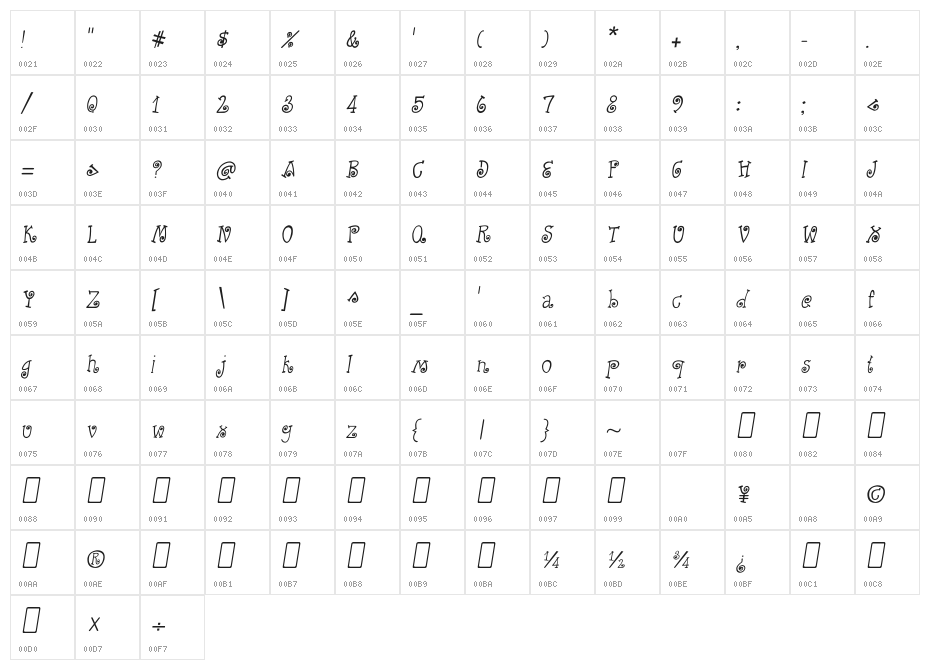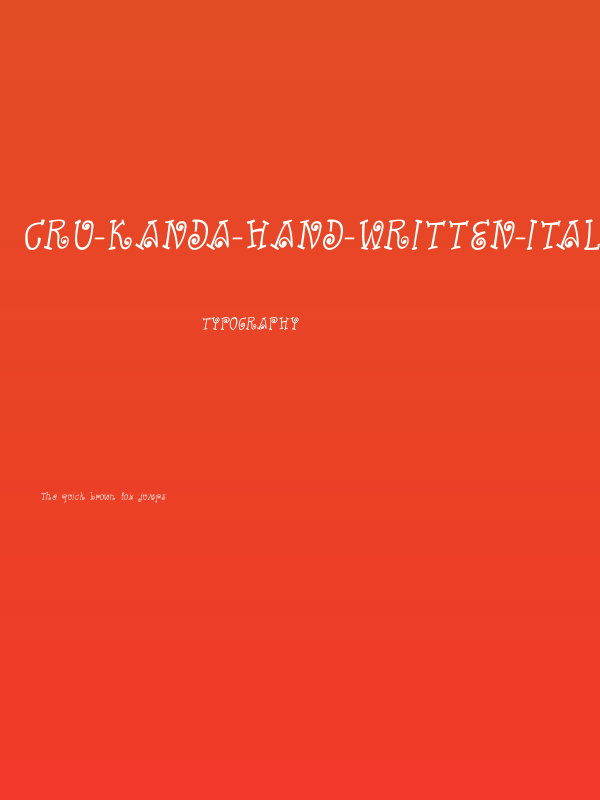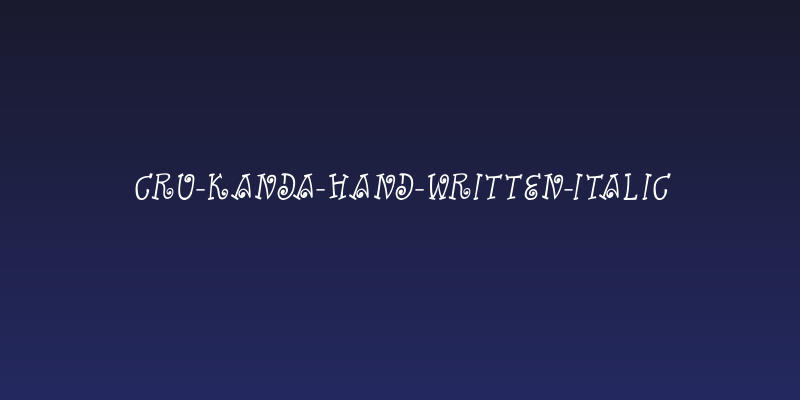
CRU-Kanda-Hand-Written-Italic Font
CRU-Kanda-Hand-Written-Italic Description
This font features a whimsical, hand-drawn style with a playful and artistic flair. The characters are uniquely crafted with swirling and curling elements, giving them a lively and dynamic appearance. The uppercase letters are bold and prominent, while the lowercase letters maintain a consistent flow with a slightly more delicate touch. Numbers and special characters follow the same creative design, ensuring a cohesive look throughout. The font's overall aesthetic is both charming and distinctive, making it suitable for projects that require a touch of creativity and individuality.
| Proposed Projects | Ideal for greeting cards, children's books, playful branding, and artistic posters. |